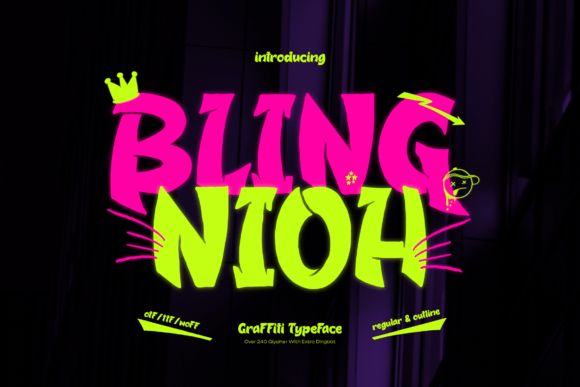
Bling Nioh Font: The Ultimate Graffiti Typeface for Your Creative Projects
Are you looking for a font that can add a touch of edginess and urban flair to your designs? Look no further than the Bling Nioh Font, a graffiti-style typeface that’s perfect for a wide range of creative projects. In this article, we’ll take a closer look at the Bling Nioh Font, its features, and how you can use it to elevate your designs.
What is Bling Nioh Font?
Bling Nioh Font is a graffiti-style font that’s designed to give your projects a bold, urban look. It’s a versatile typeface that’s suitable for a wide range of applications, from logos and branding projects to homeware designs, product packaging, and more.
The font features a unique, hand-drawn design that’s inspired by the street art of graffiti. It’s characterized by bold lines, vibrant colors, and a dynamic, energetic feel that’s sure to grab attention.
Project Ideas for Bling Nioh Font
Bling Nioh Font is a versatile typeface that can be used for a wide range of creative projects. Here are some ideas to get you started:
- Logos and branding projects: Use Bling Nioh Font to create a bold, eye-catching logo that’s sure to stand out.
- Homeware designs: Add a touch of urban flair to your homeware designs, such as cushions, mugs, and tote bags.
- Product packaging: Use Bling Nioh Font to create eye-catching product packaging that’s sure to grab attention on store shelves.
- Mugs and quotes: Create inspiring quotes and designs for mugs, t-shirts, and other promotional products.
- Posters and flyers: Use Bling Nioh Font to create bold, eye-catching posters and flyers for events, concerts, and festivals.
- Shopping bags: Add a touch of style and sophistication to your shopping bags with Bling Nioh Font.
- T-shirts and apparel: Use Bling Nioh Font to create bold, eye-catching designs for t-shirts, hoodies, and other apparel.
- Book covers: Use Bling Nioh Font to create eye-catching book covers that are sure to stand out on bookstore shelves.
- Name cards and invitation cards: Add a touch of elegance and sophistication to your name cards and invitation cards with Bling Nioh Font.
- Greeting cards: Use Bling Nioh Font to create bold, eye-catching greeting cards for special occasions.
- Labels and watermarks: Use Bling Nioh Font to create custom labels and watermarks for your products or photography.
Benefits of Using Bling Nioh Font
There are many benefits to using Bling Nioh Font for your creative projects. Here are a few:
- Unique and eye-catching design: Bling Nioh Font features a unique, hand-drawn design that’s sure to grab attention.
- Versatile: Bling Nioh Font is a versatile typeface that can be used for a wide range of applications.
- High-quality: Bling Nioh Font is a high-quality typeface that’s designed to produce crisp, clear results.
Tips and Tricks for Using Bling Nioh Font
Here are a few tips and tricks for using Bling Nioh Font:
- Use it sparingly: Bling Nioh Font is a bold, eye-catching typeface that’s best used sparingly. Use it to highlight key words or phrases, or to add emphasis to your designs.
- Experiment with colors: Bling Nioh Font looks great in a variety of colors, so don’t be afraid to experiment and find the perfect color scheme for your design.
- Pair it with other fonts: Bling Nioh Font can be paired with other fonts to create a unique and interesting design. Try pairing it with a clean, sans-serif font for a bold and modern look.
Bling Nioh Font is a versatile and eye-catching graffiti-style typeface that’s perfect for a wide range of creative projects. With its unique design, bold lines, and vibrant colors, it’s sure to add a touch of urban flair to your designs. Whether you’re a graphic designer, artist, or DIY enthusiast, Bling Nioh Font is a great choice for any project that needs a bold and edgy look.